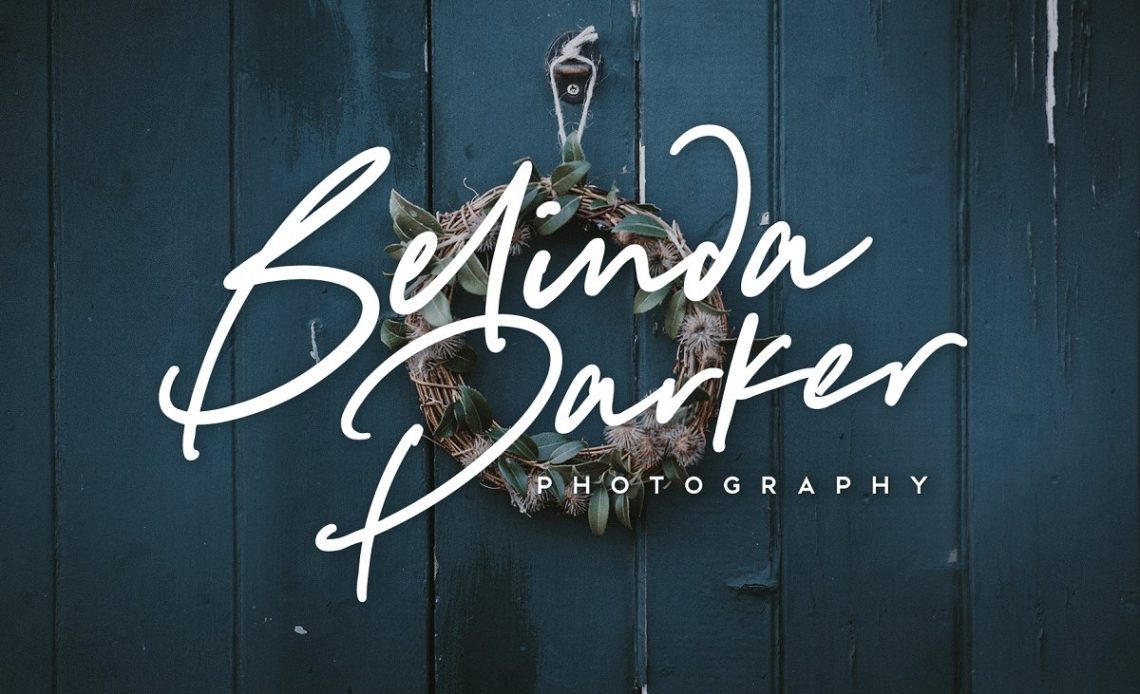
Are you tired of using the same boring font for your professional design projects? Want to add a touch of sophistication and modernity to your work? Look no further than the Distinct Style Font Duo, created by the talented Sam Parrett.
This stylish and contemporary pair of signature and sans fonts is perfect for creating eye-catching logos, branding, magazines, blog posts, social media posts, advertisements, and product designs. The Distinct Style duo offers typographic harmony with a fast-flowing script font and a two-weight modern sans serif.
Your download of the Distinct Style Font Duo includes 5 font files that are designed to work together perfectly or as standalone typefaces. The Distinct Style Script font is a classy, fast-flowing signature font that includes upper and lowercase characters, numerals, and a large range of punctuation. The Distinct Style Script Alt font offers a completely new set of upper and lowercase characters for those who want to avoid letter repetition or try a different word shape.
The Distinct Style Sans Light font is a stylish, modern sans-serif font that includes uppercase only characters, numerals, and a large range of punctuation. It creates a perfect contrast when paired with the Distinct Style Script fonts. For bolder text, the Distinct Style Sans Bold font is the perfect choice. Use it in combination with the Sans Light version for added contrast, or use it at smaller sizes.
If you want to add some extra flair to your designs, the Distinct Style Ligatures font allows you to generate a ligature by simply typing any a-z, A-Z, or 0-9 character. It also includes four swashes assigned to the following keys: [ ] { }.